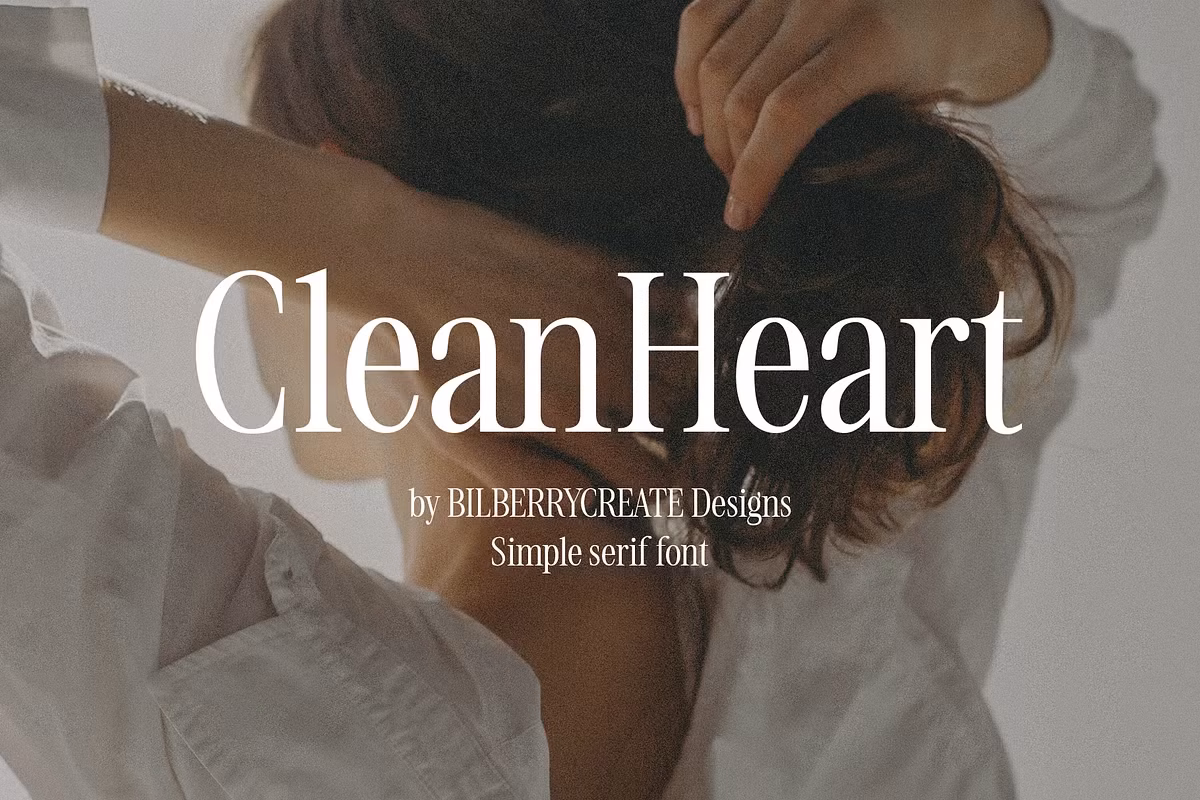
CleanHeart - Simple serif font Free Download
CleanHeart – Simple Serif Font Free Download
The simplicity of the font makes it highly versatile, ideal for both digital and print applications. It includes uppercase and lowercase letters, numerals, punctuation, and multilingual support, ensuring it works for a wide variety of creative projects.
Whether you're working on a sleek brand identity, crafting a refined editorial layout, or designing professional marketing materials, CleanHeart brings clarity and elegance to your typography.